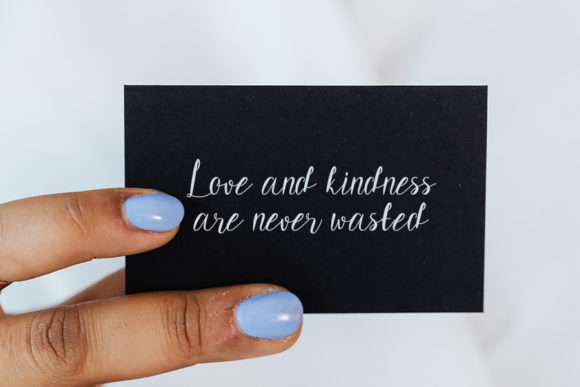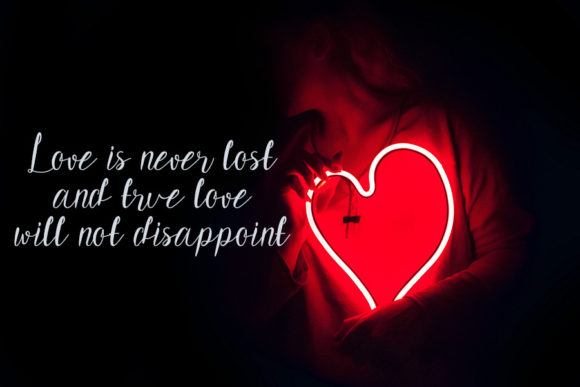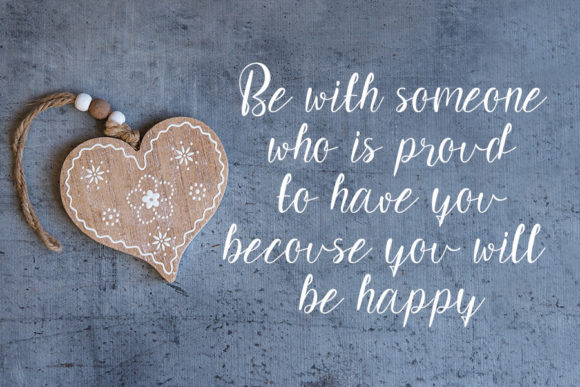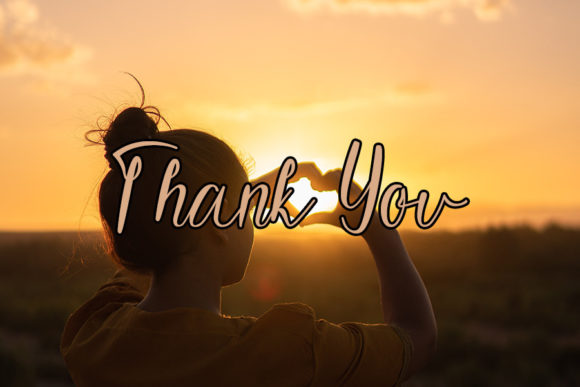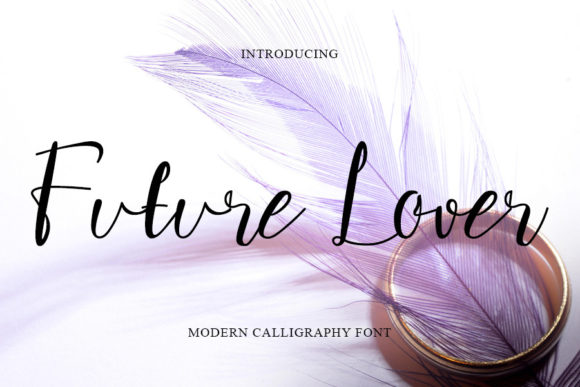
Introducing Future Lover Font: Elevate Your Designs with Elegance
In the world of typography, a font can make or break the aesthetic of a design. For those seeking a touch of elegance and sophistication, the Future Lover Font is an exceptional choice. This stylish and incredibly elegant script font is perfect for designers and crafters looking to add a handwritten touch to their projects.
What Makes Future Lover Font Stand Out?
Future Lover Font is not just another script font; it’s a versatile typeface that can elevate a wide range of design materials. Its flowing lines and beautiful curves give it a unique charm that can instantly add a level of sophistication to any project. Whether you’re working on wedding invitations, thank you cards, quotes, greeting cards, logos, or business cards, this font is sure to impress.
Weddings and special events are all about details, and the typography used in your invitations and decor can set the tone for the entire celebration. Future Lover Font, with its elegant and stylish appearance, is perfect for wedding invitations, save-the-date cards, and other event-related materials. Its classic yet modern look will ensure that your designs stand out and leave a lasting impression on your guests.
Ideal for Crafters and Small Business Owners
Crafters and small business owners often look for unique and stylish fonts to give their products and branding a personal touch. Future Lover Font is an excellent choice for anyone looking to add a touch of elegance to their products, packaging, or marketing materials. From handmade jewelry and crafts to bakery and boutique branding, this font can help elevate your brand’s visual identity.
Key Features of Future Lover Font
- Elegant Script Style: Future Lover Font boasts a beautiful, flowing script style that adds a touch of sophistication to any design.
- Versatile: Suitable for a wide range of design projects, from wedding invitations to business cards and logos.
- Handwritten Touch: Gives your designs a personal, handwritten feel that’s sure to stand out.
- Easy to Read: Despite its elegant appearance, Future Lover Font remains clear and easy to read, making it perfect for both headings and body text.
Tips for Using Future Lover Font
To make the most of Future Lover Font, consider the following tips:
- Pair with Complementary Fonts: For optimal results, pair Future Lover Font with simple, sans-serif fonts to create a balanced look.
- Adjust Letter Spacing: Slightly adjust the letter spacing to ensure your text looks elegant and not too crowded.
- Use for Headings and Accents: While it’s beautiful for body text, Future Lover Font shines as a heading font. Use it to draw attention to key information or to add an elegant touch to your designs.
Future Lover Font is a versatile and elegant script font that can add a touch of sophistication to any design project. Whether you’re a designer working on a client’s wedding invitation or a small business owner looking to elevate your brand’s visual identity, this font is an excellent choice. Its unique charm, readability, and elegance make it a valuable addition to any designer’s font library.